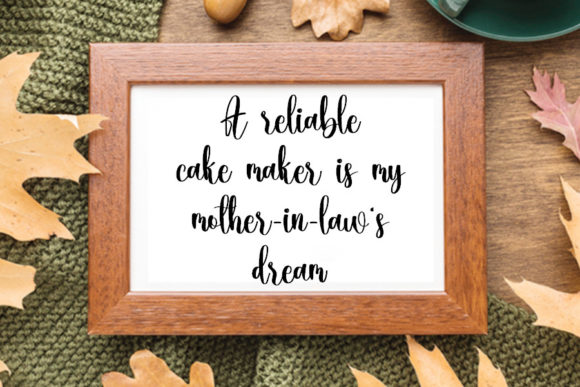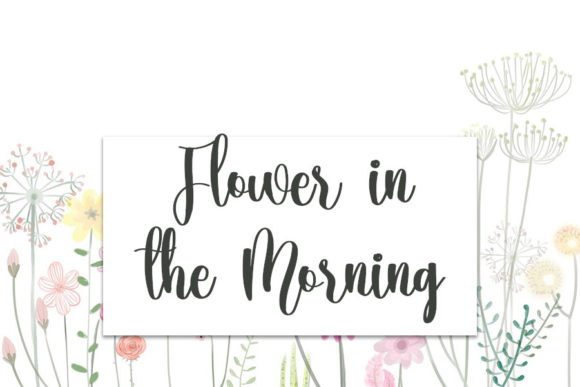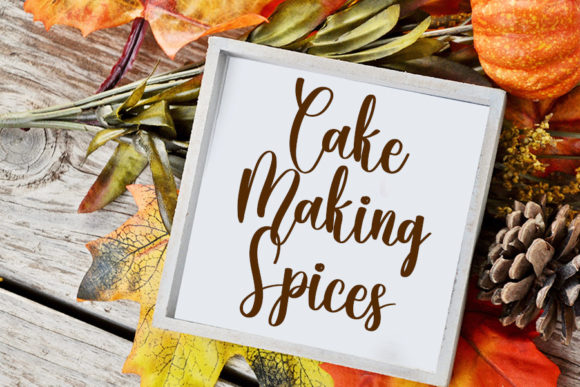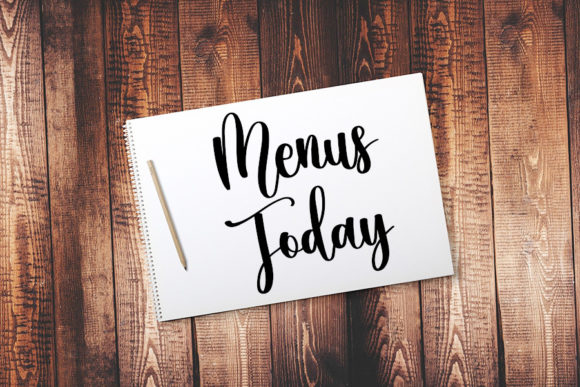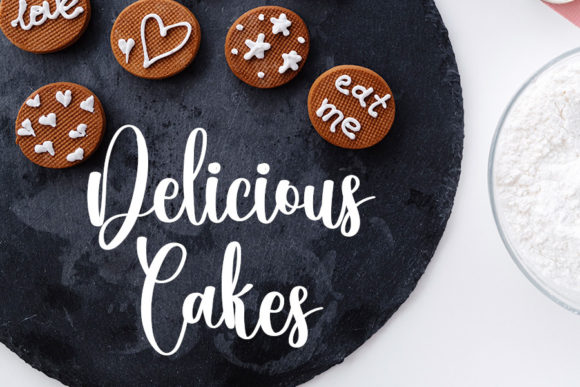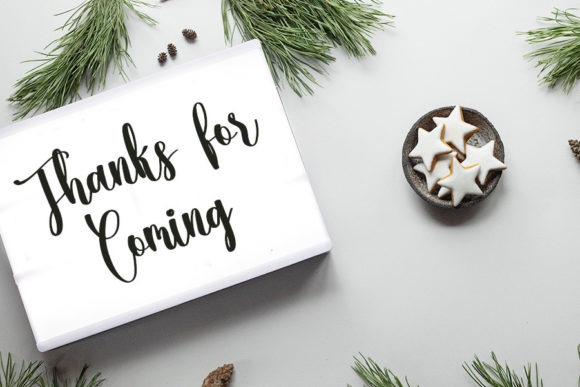
Biscuits Font: Adding a Touch of Romance to Your Designs
Are you looking for a font that can add a romantic feel to your next project? Look no further than Biscuits Font, an enchanting handwritten script font that is sure to captivate your audience. With its versatile and elegant design, Biscuits Font is perfect for a wide range of applications, from greeting cards to headlines, and everything in between.
What is Biscuits Font?
Biscuits Font is a beautiful handwritten script font that features elegant, cursive letters with a touch of whimsy. Its unique design makes it perfect for adding a personal touch to any project, whether you’re creating a romantic greeting card, a stylish headline, or a charming label. The font’s flowing lines and delicate curves give it a distinctly feminine feel, making it ideal for designs that require a touch of elegance and sophistication.
Key Features of Biscuits Font
- Handwritten script font: Biscuits Font features a beautiful, handwritten script design that gives it a personal and unique feel.
- Versatile: This font is suitable for a wide range of applications, from greeting cards to headlines, and can be used for both personal and commercial projects.
- Romantic feel: Biscuits Font is guaranteed to add a romantic touch to your designs, making it perfect for Valentine’s Day, wedding, or anniversary-themed projects.
- Elegant and sophisticated: The font’s flowing lines and delicate curves give it a distinctly feminine feel, making it ideal for designs that require a touch of elegance and sophistication.
Uses of Biscuits Font
Biscuits Font is a versatile font that can be used for a wide range of applications, including:
- Greeting cards: Add a personal touch to your greeting cards with Biscuits Font, perfect for special occasions like Valentine’s Day, weddings, or anniversaries.
- Headlines: Use Biscuits Font to create stylish and eye-catching headlines for your blog posts, articles, or social media graphics.
- Labels and tags: Add a touch of elegance to your labels and tags with Biscuits Font, perfect for crafters, bloggers, or small business owners.
- Stationery and invitations: Use Biscuits Font to create beautiful stationery and invitations for special occasions like weddings, baby showers, or birthday parties.
Tips for Using Biscuits Font
Here are some tips for using Biscuits Font effectively in your designs:
- Pair with complementary fonts: Pair Biscuits Font with complementary fonts to create a visually appealing contrast.
- Use for headlines and titles: Use Biscuits Font for headlines and titles to add a touch of elegance and sophistication.
- Experiment with colors and textures: Experiment with different colors and textures to add depth and interest to your designs.
- Keep it simple: Don’t overcomplicate your design – keep it simple and elegant to let Biscuits Font shine.
In conclusion, Biscuits Font is a beautiful and versatile handwritten script font that is sure to add a romantic feel to your next project. With its elegant design and wide range of applications, Biscuits Font is perfect for designers, crafters, and anyone looking to add a touch of sophistication to their designs. So why not give Biscuits Font a try and see how it can elevate your designs to the next level?